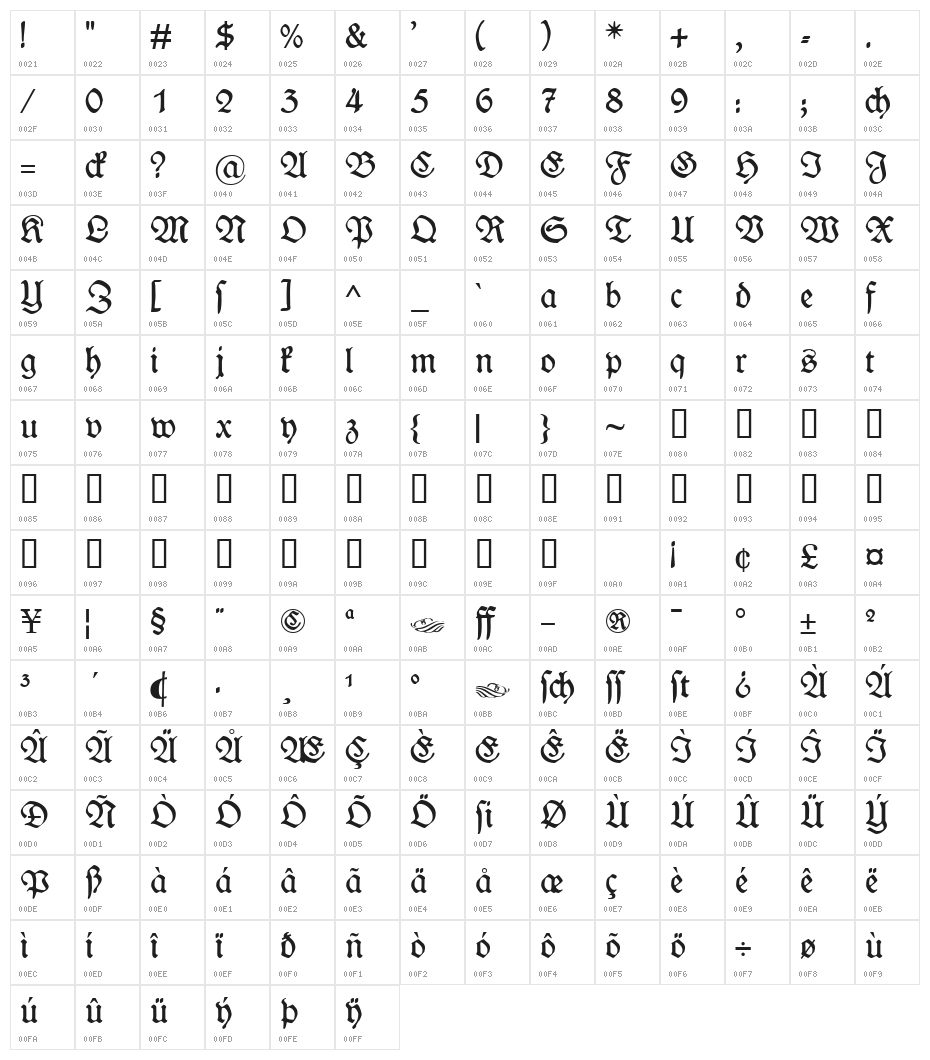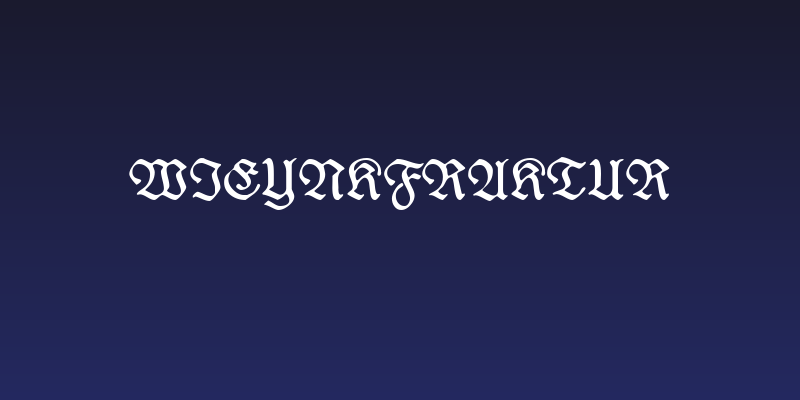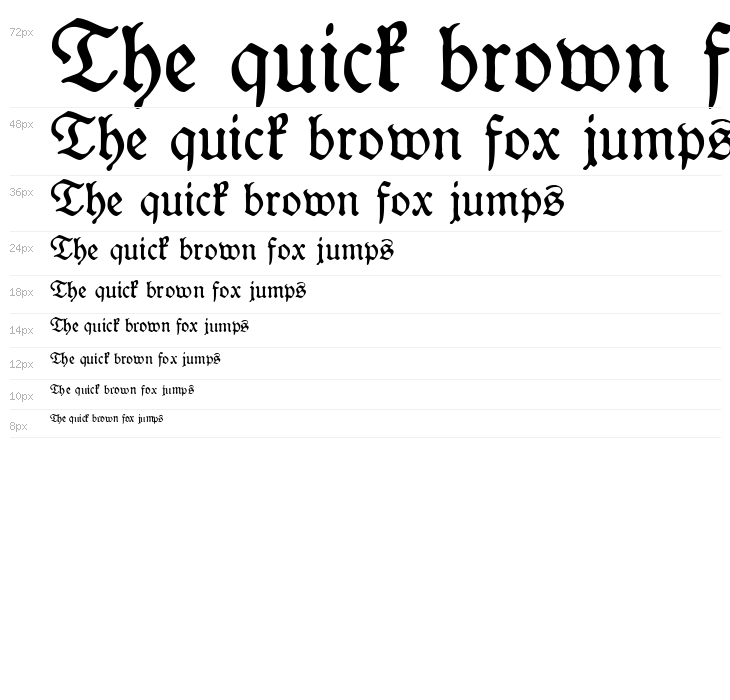
WieynkFraktur Font
WieynkFraktur Description
This font embodies the traditional elegance of Blackletter typography, characterized by its intricate and ornate letterforms. The uppercase letters exhibit a strong, angular structure with decorative flourishes, while the lowercase letters maintain a consistent style with a slightly more rounded appearance. The numerals are bold and distinct, complementing the overall aesthetic. Special characters are designed with the same attention to detail, enhancing the font's historical and artistic appeal. This font is ideal for projects that require a touch of vintage sophistication and a nod to medieval script traditions.
| Use Case | Headlines, Logos, Decorative text |
| Proposed Projects | Ideal for historical documents, certificates, book covers, and branding that requires a classic, medieval touch. |